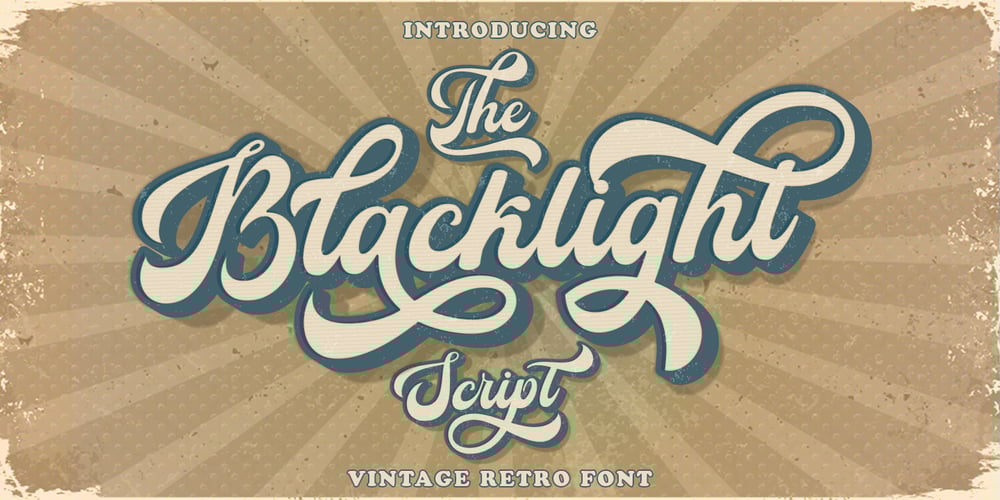
The Blacklight Script
The Blacklight Script font
The Blacklight Script Font Family was designed by T Haikal Budillah and published by HKL Studio. The Blacklight Script contains 1 styles and family package options. I would like to introduce this cool font, The Blacklight Script, which is a Bold script font with a touch of charming Retro style. This font also looks interesting because I added some alternative features that you can use. stay relevant for a charming modern look. there’s nothing wrong if you feel all the experience of using this font in your design, make this font one of the font collections on your computerwhat will you get:Blacklight scripts Alternative PUA features coded We hope you enjoy this font! feel free to comment if you have any thoughts or feedback. Thank you for buying and happy creating! 🙂